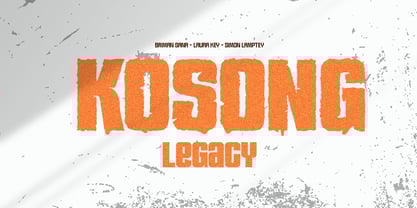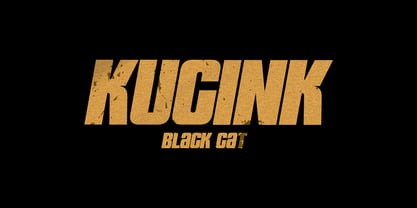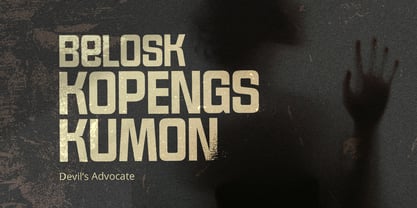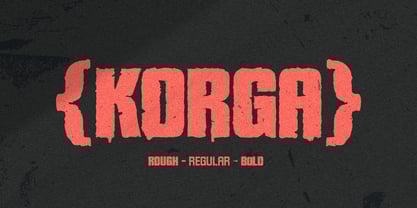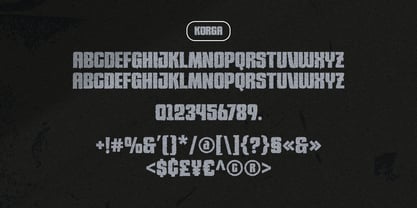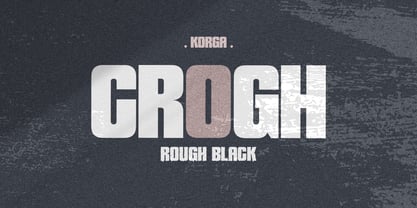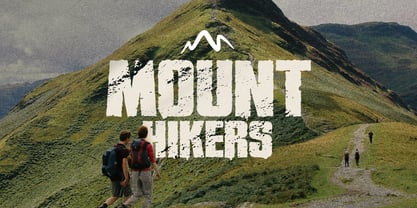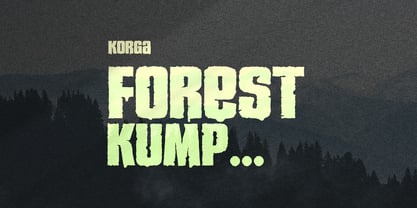
Korga
The Korga Font Family was designed by Jarnawi Saja and published by Grontype. Korga contains 6 styles and family package options. More about this family
Korga is a dynamic sans-serif typeface that embodies the perfect balance between modern urban aesthetics and timeless elegance. Designed with versatility in mind, this font family offers three distinctive styles—Rough, Regular, and Bold—each crafted to suit a variety of design needs. With its clean yet strong letterforms, Korga exudes a bold, confident presence, making it an ideal choice for logotypes, branding, headlines, and editorial design. The rough variant adds a rugged, textured feel, perfect for projects that require a raw, authentic touch. Meanwhile, the regular and bold versions maintain a sleek, refined look, ensuring readability and impact across digital and print media. Whether you're crafting a cutting-edge brand identity, a stylish apparel label, or an eye-catching poster, Korga delivers modern sophistication with a hint of toughness. This typeface is built to stand out, making your designs bold, powerful, and unforgettable.
Features:
• Modern San Serif Font
• Basic Latin Glyphs
• Uppercase Letter
• Ligatures & Alternate
• Numeral and Punctuation
• Currencies
• Multilingual Support